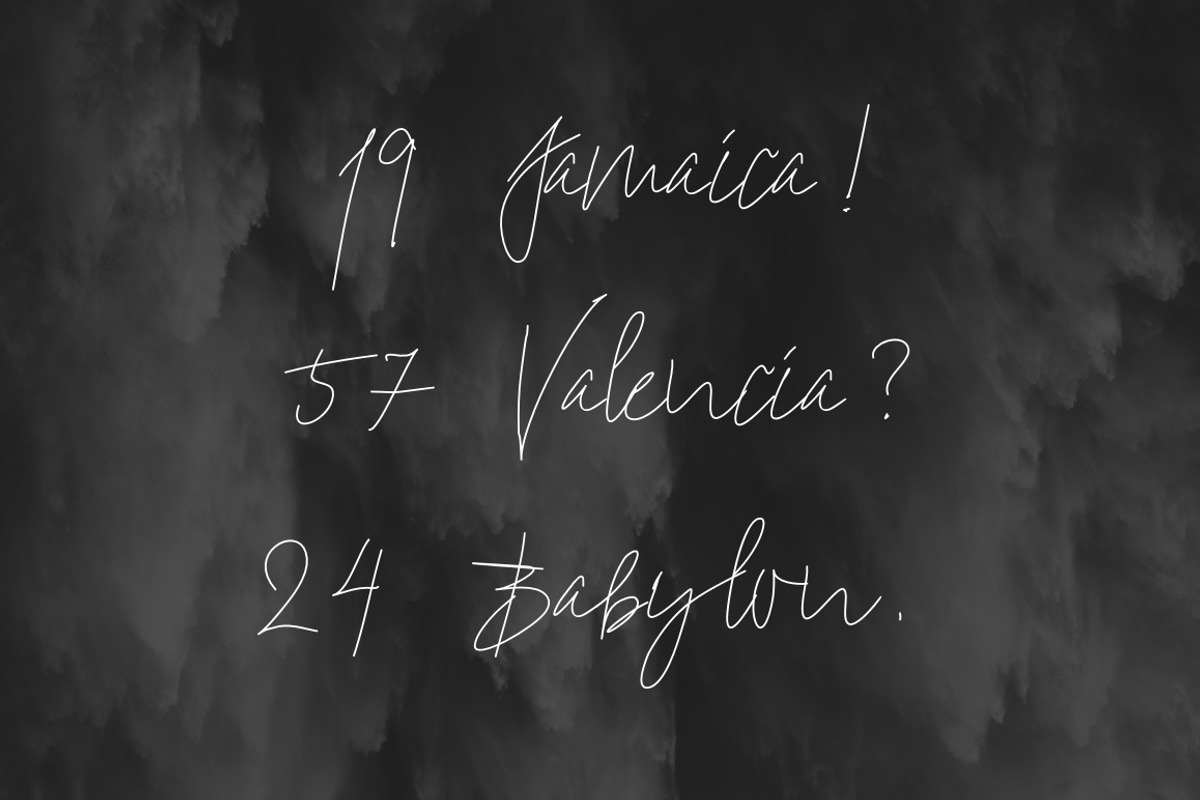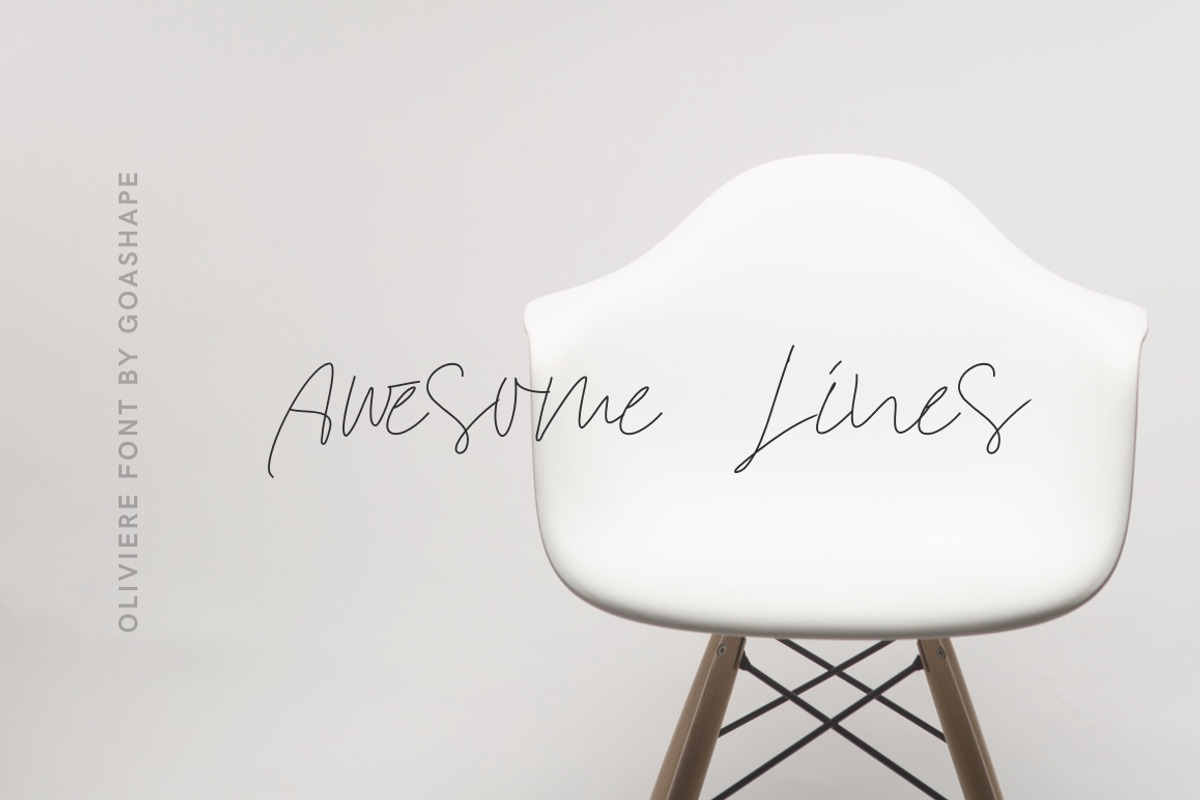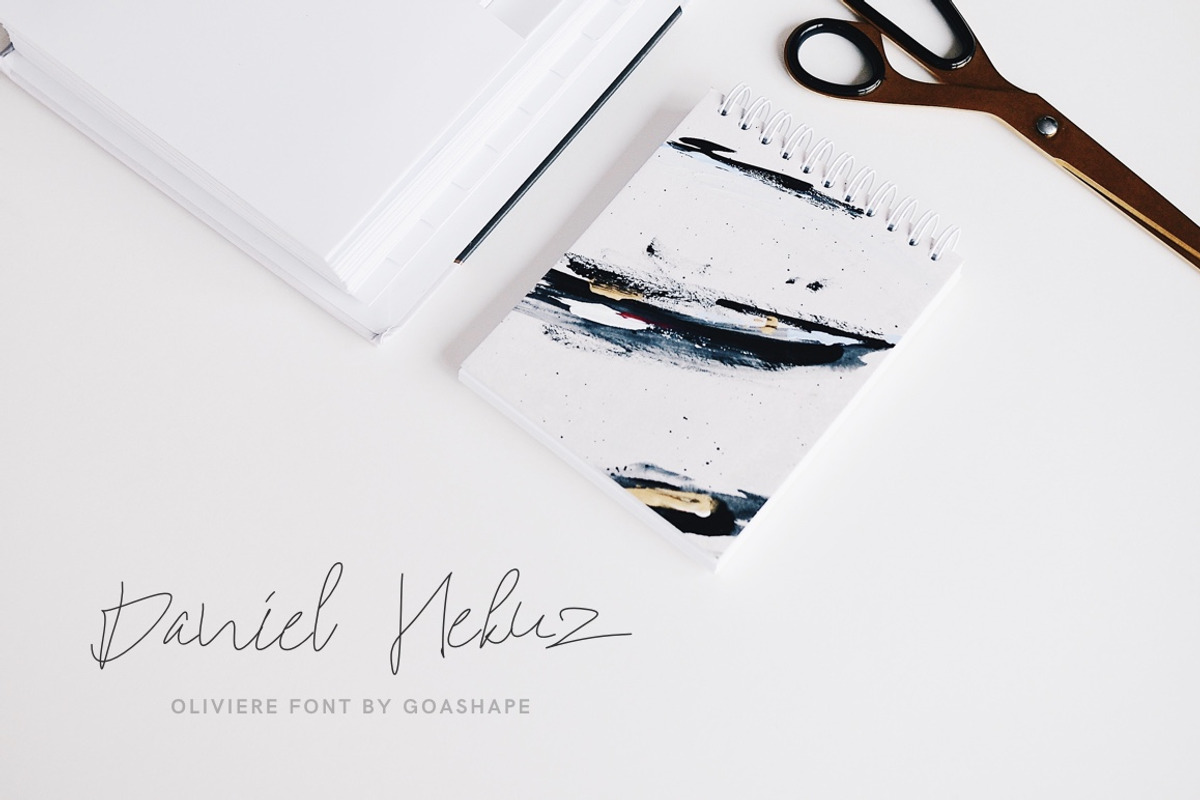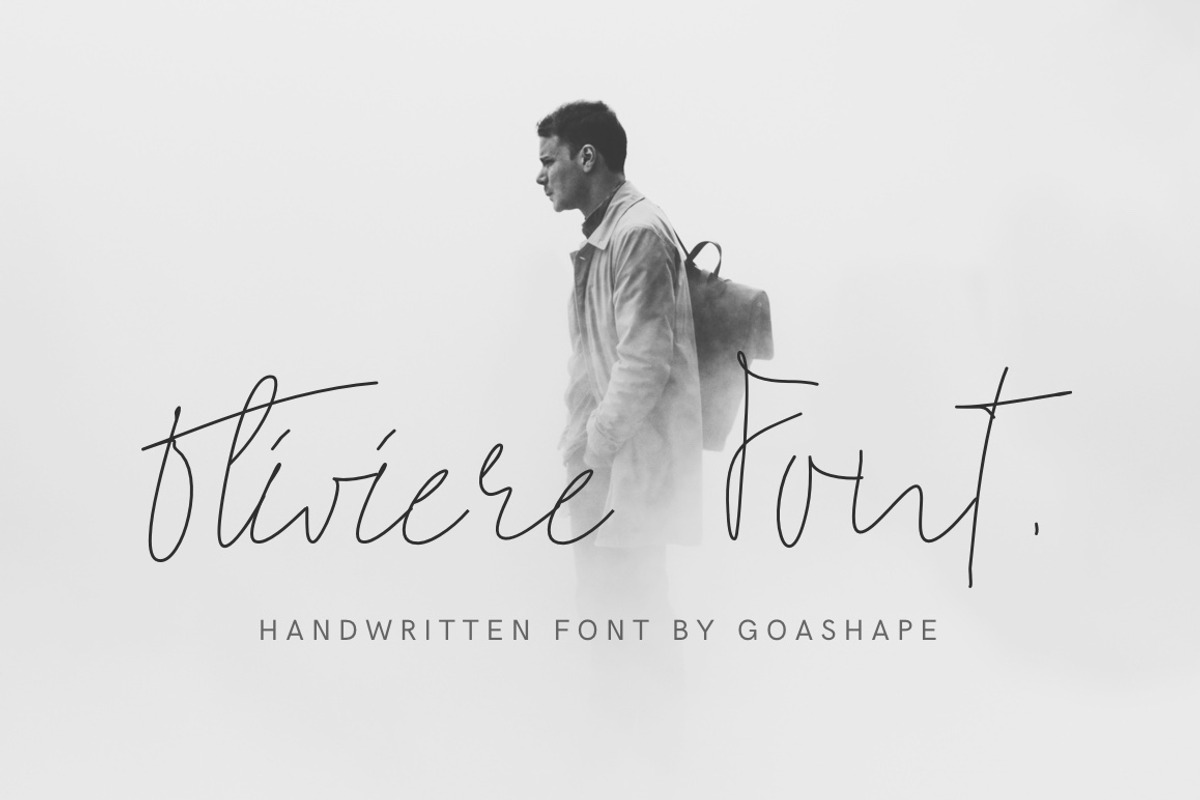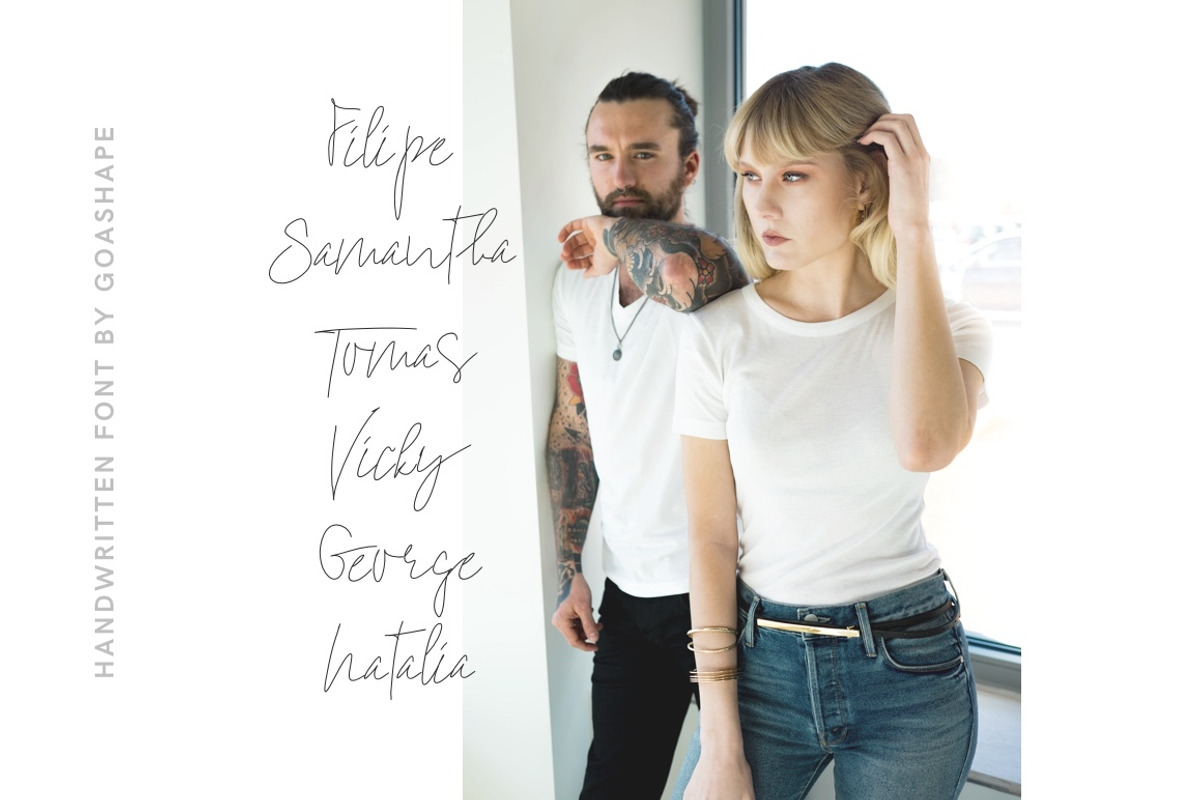
Oliviere Handwritten Font Script
Give your designs an authentic handcrafted feel. "Oliviere" is perfectly suited to signature, stationery, logo, typography quotes, magazine or book cover.
Oliviere Handwritten Font Script by Goashape Studio fits naturally into Branding, posters, packaging, typography.